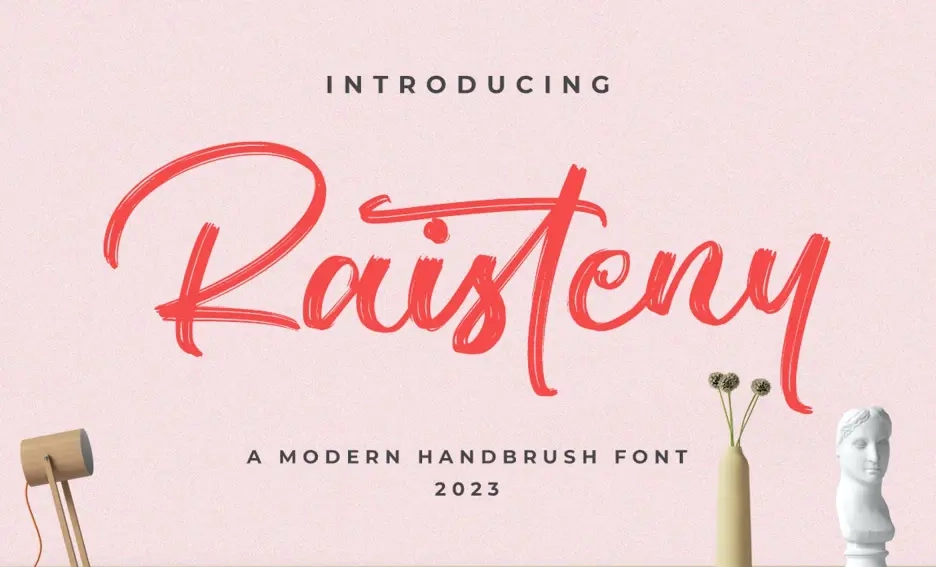
Raisteny – Brush Font E7395Eb
Introducing Raisteny, a beautifully crafted brush font that adds a personal touch to your designs. With its fluid strokes and artistic flair, this font is ideal for a variety of creative projects.
• Stylish brush script design
• Multiple language support
• Weights: Regular
This font is perfect for branding, logos, invitations, posters, and any project requiring a touch of elegance and creativity.